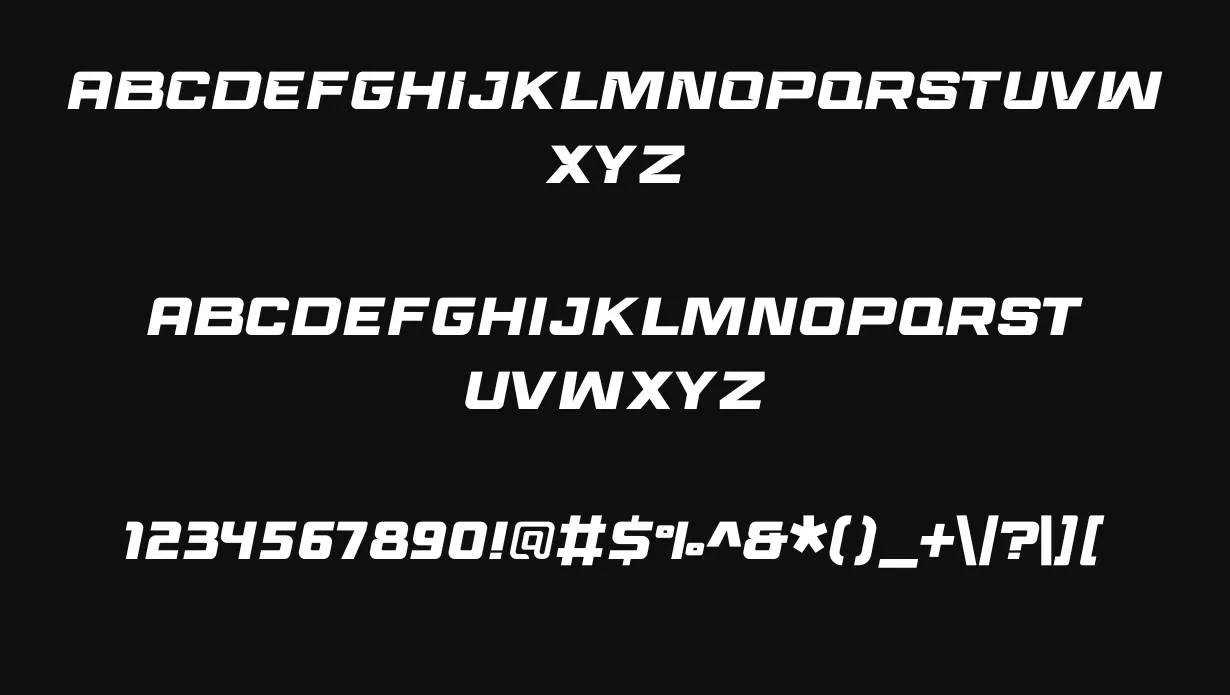
Sport font is like the bold and competitive spirit of a team. The letters have a strong and dynamic design, making it ideal for projects related to sports events, team activities, or any content that requires a sense of athleticism and strength.
Using Sport font is like gearing up for a big game. It’s like using bold and impactful letters to create a sense of excitement and anticipation. Whether you’re designing materials for a sports competition or creating a banner for a team event, Sport font adds a touch of competitiveness to your words.